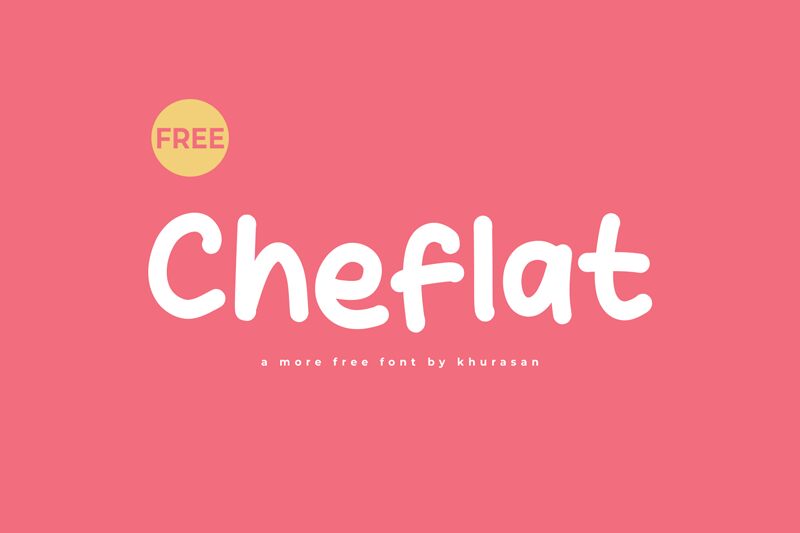
Cheflat, designed by Khurasan, is a playful and dynamic display font that captures the whimsy and fun of cartoon aesthetics. Its rounded forms and bouncy baseline exude a sense of joy and creativity, making it an excellent choice for projects that aim to delight and engage. The cheerful curvature of each letter invites a friendly warmth into any design, while its bold weight ensures high visibility.
Ideal for anything from children's books to casual branding, Cheflat offers versatility within its niche. It carries a casual charm that can instantly make graphics more approachable and less formal. Whether you are crafting a logo for a family-friendly restaurant or designing an invitation to a themed event, Cheflat adds personality without compromising on clarity or impact. Embrace Cheflat when your project demands a touch of lightheartedness paired with strong visual appeal.